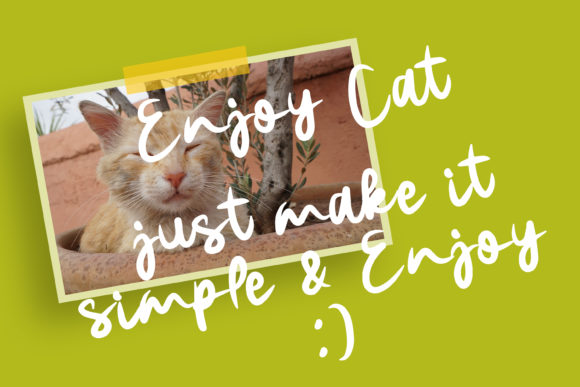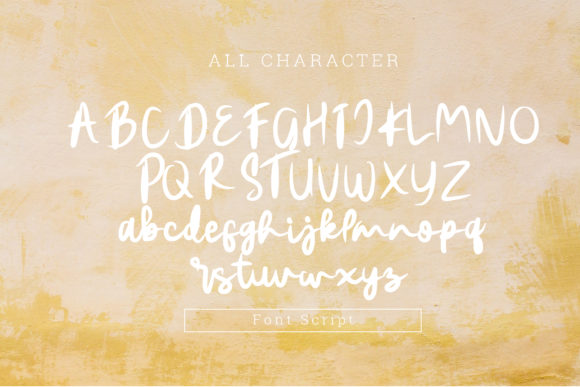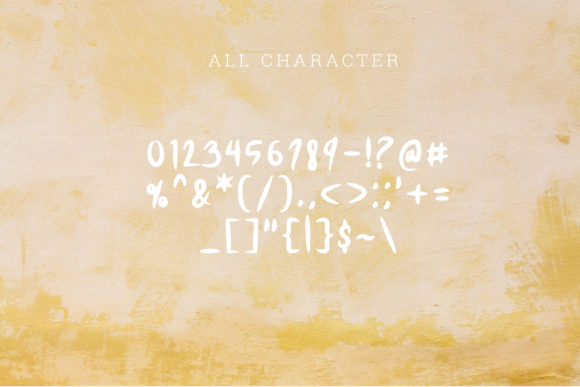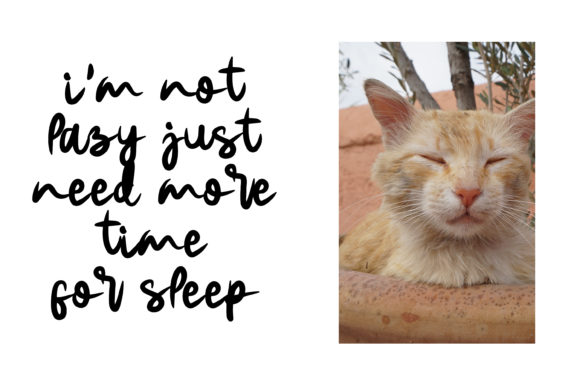
About Demen Lemonade Font
Demen Lemonade is a simple, playful and relaxed handwritten font. A little bit quirky, this font looks incredibly adept on a wide variety of contexts!